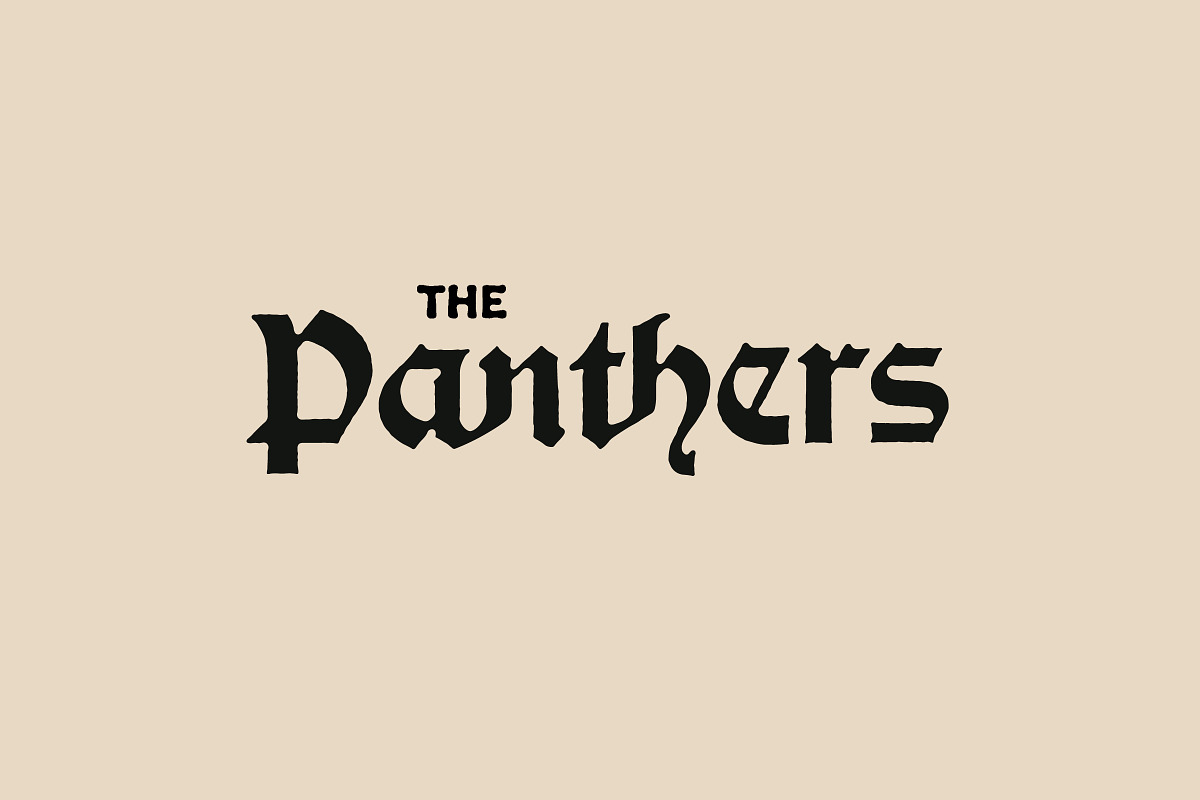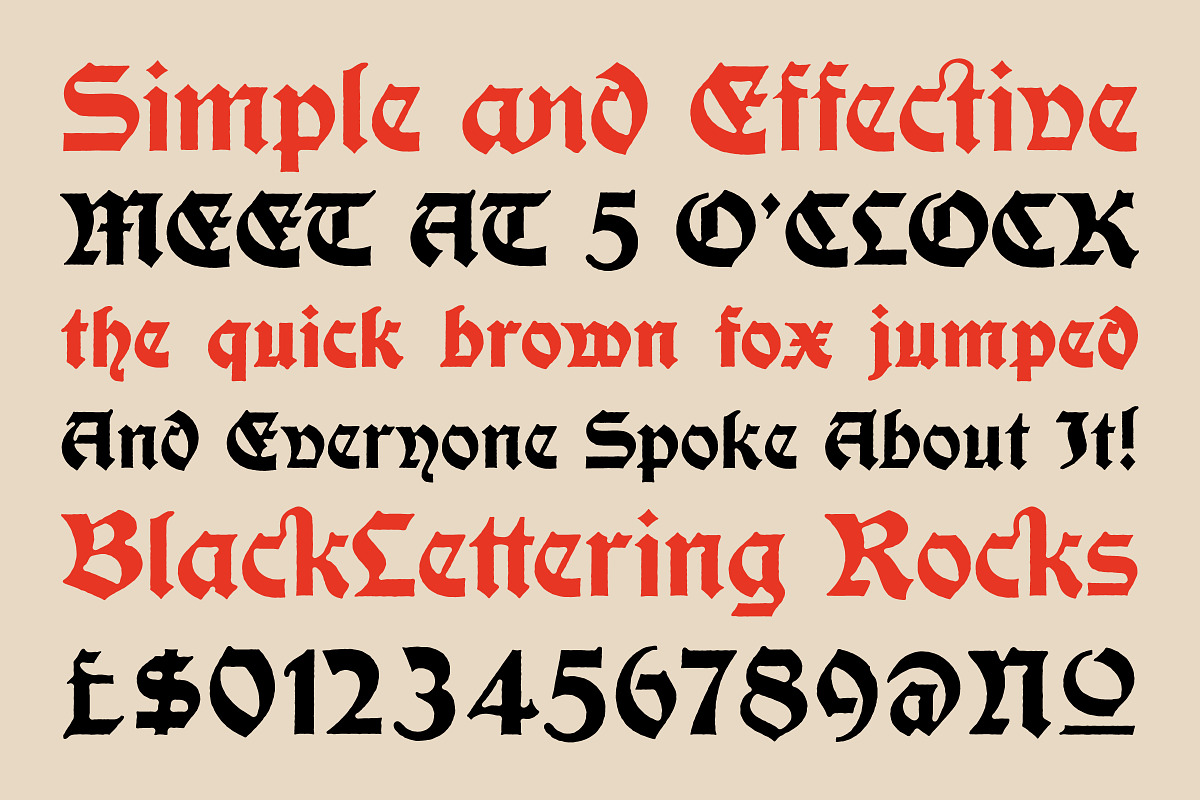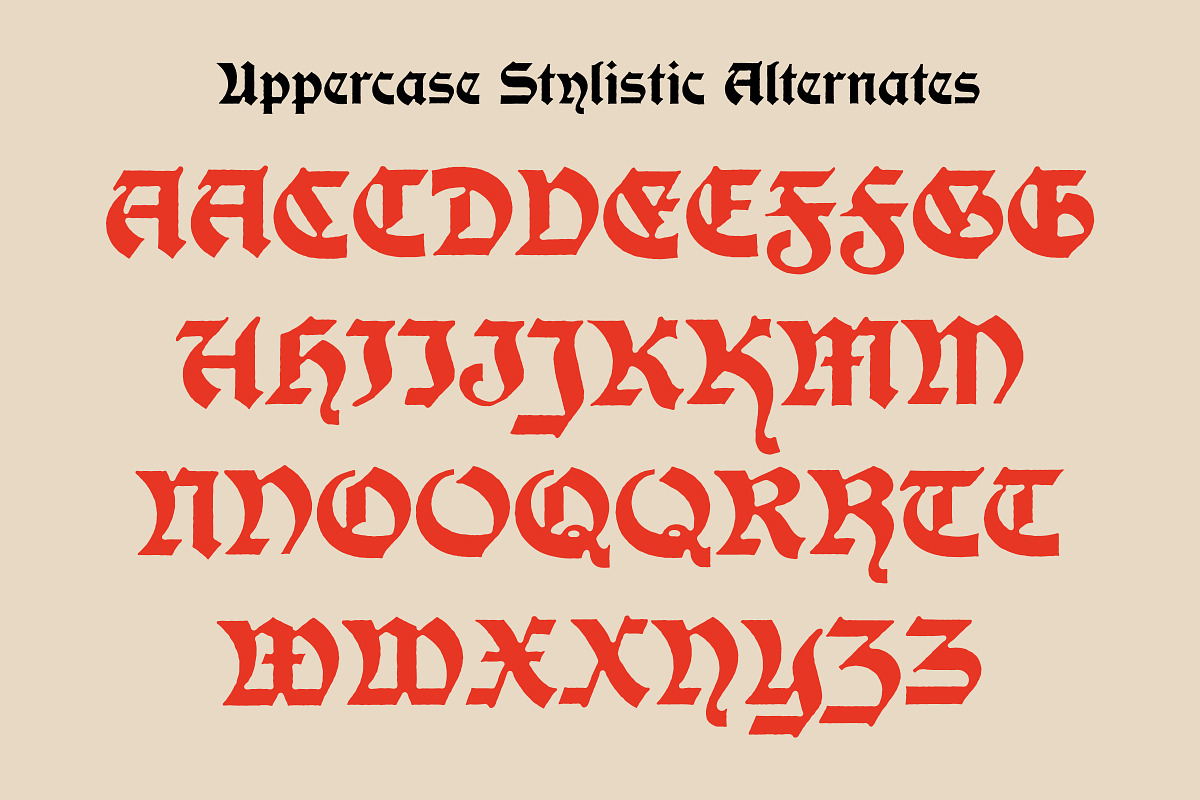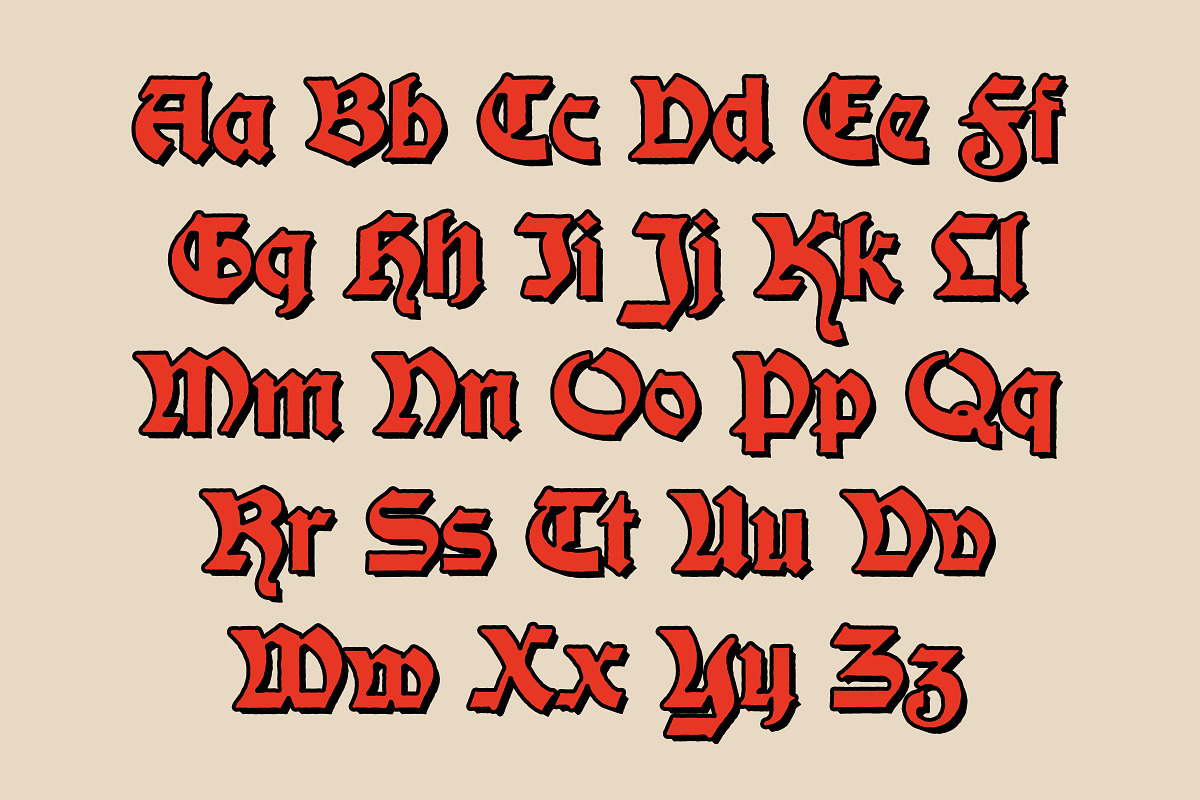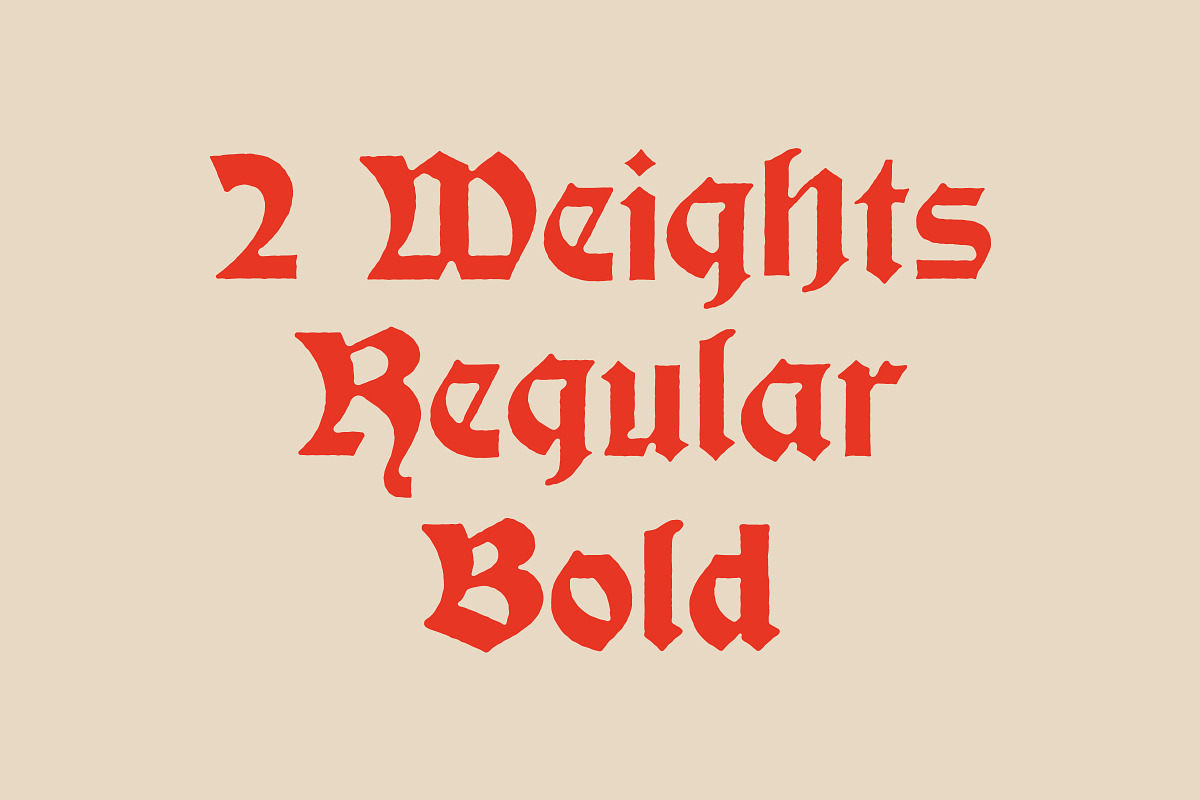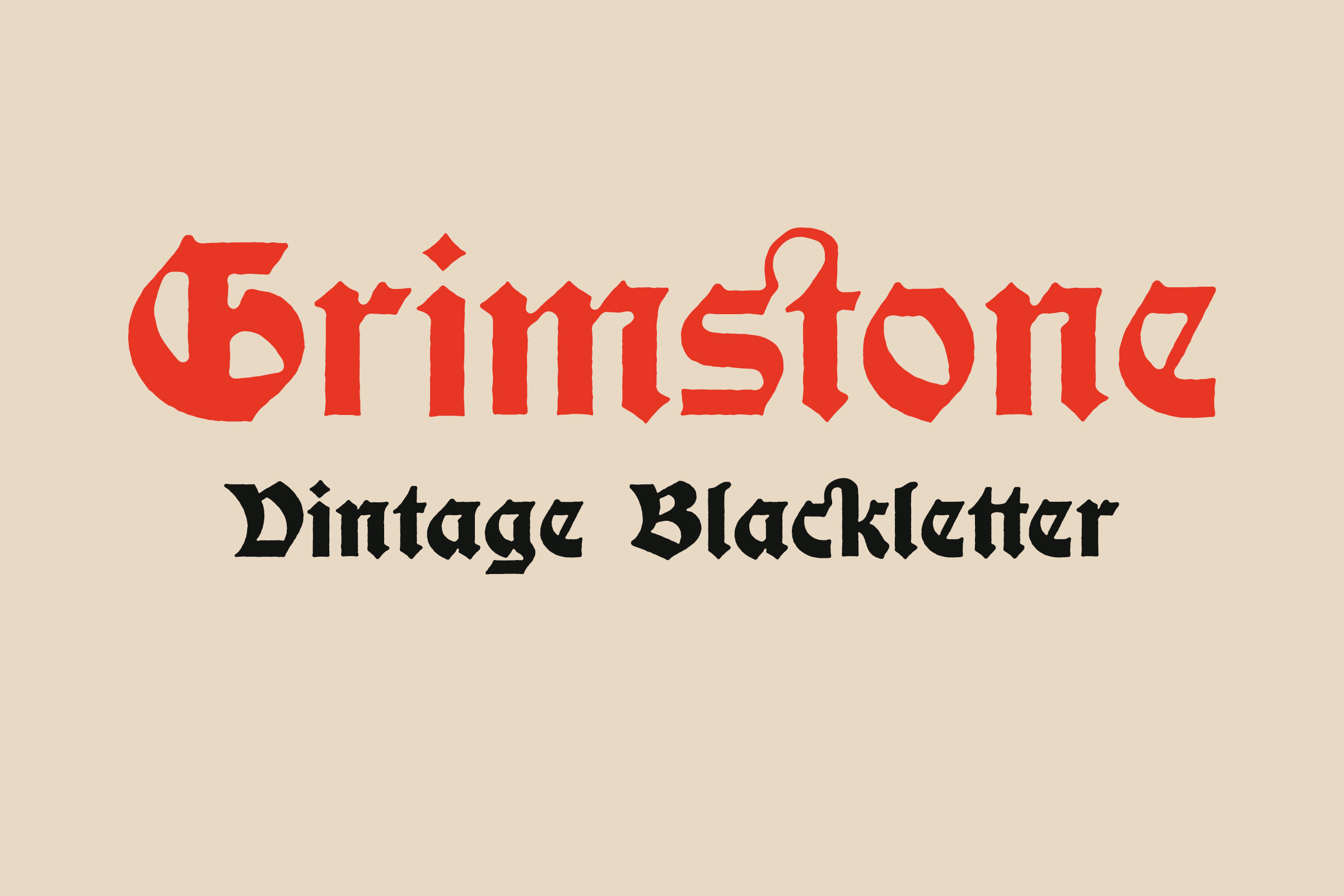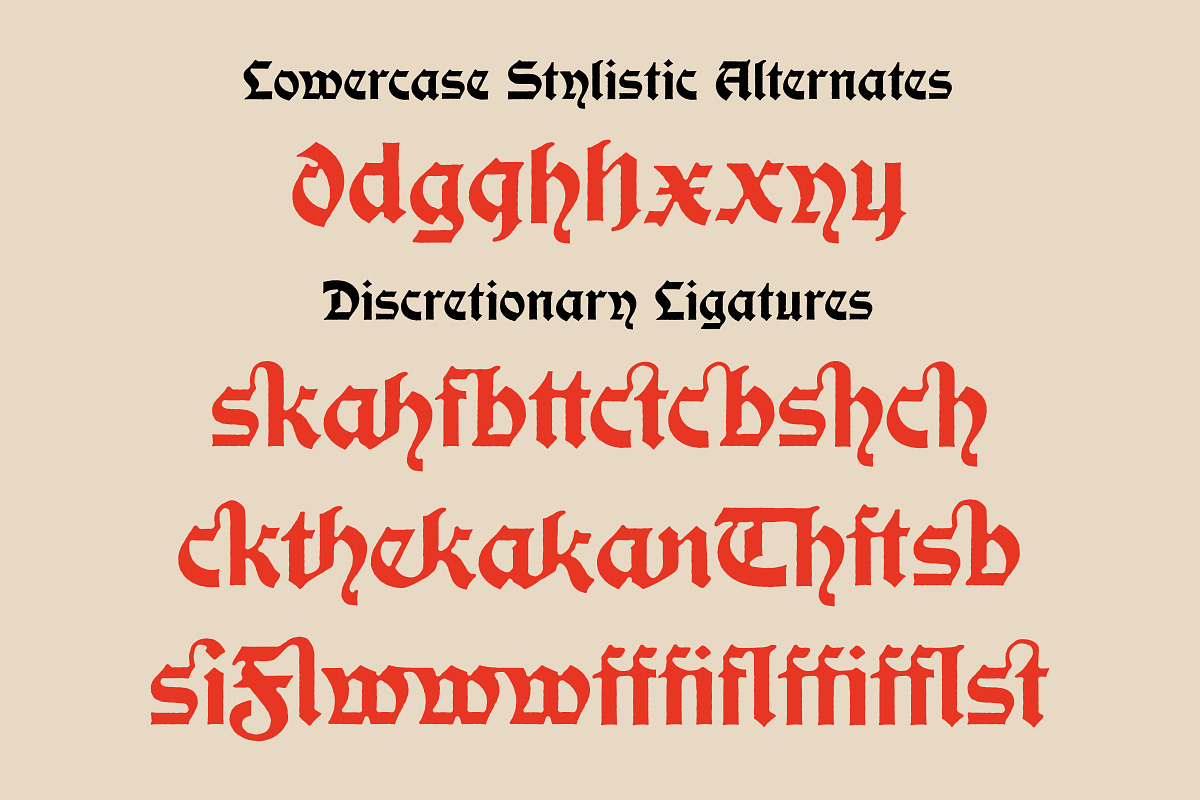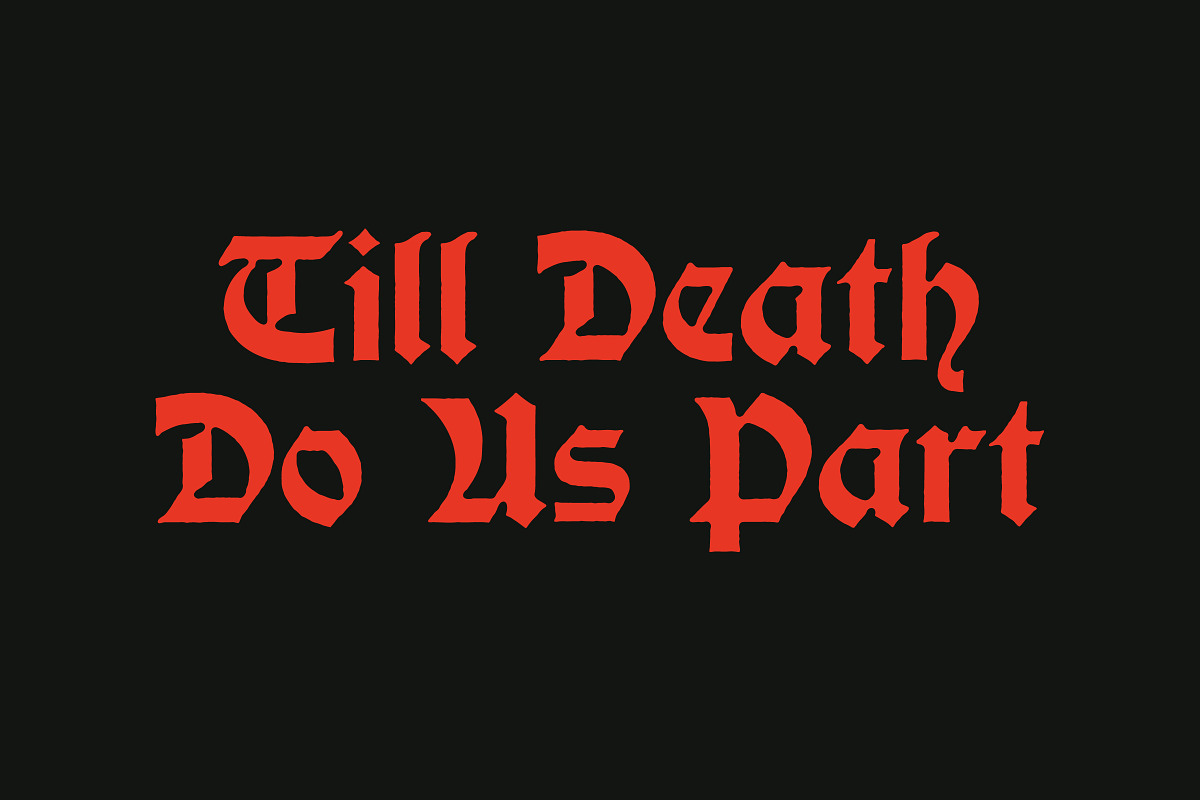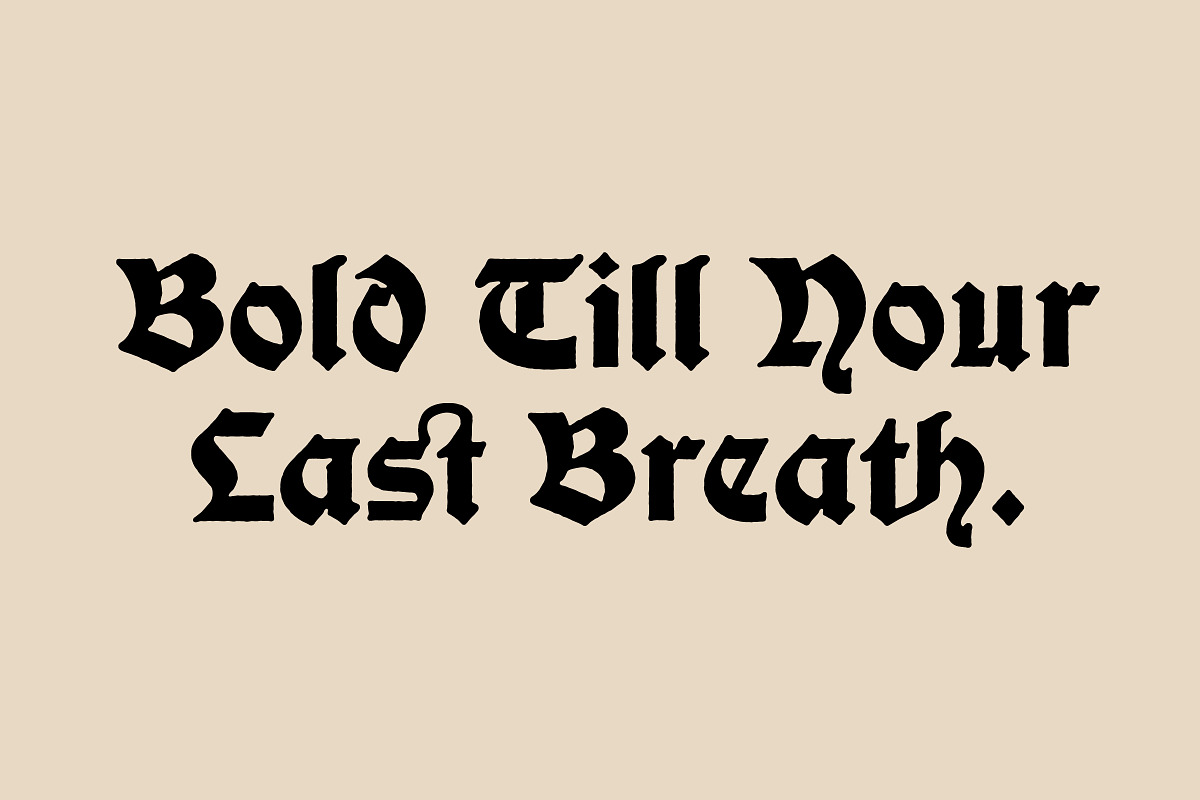
Grimstone Blackletter Vintage Font
Grimstone draws from vintage blackletter specimens, bringing together those classic angular shapes with softer, rounded edges for a look that feels both old-world and fresh. It’s got a modern medieval vibe that works perfectly for anything from logos and branding to posters and album covers.
With Regular and Bold weights, plus stylistic alternates and ligatures, Grimstone gives you flexibility to experiment with different looks without losing that authentic Blackletter feel. If you're after a font that has both presence and a bit of warmth, Grimstone’s unique blend of historical and modern touches might fit the bill!
- 25 Discretionary Ligatures
- 25 Stylistic Alternates
- Regular and Bold Weights